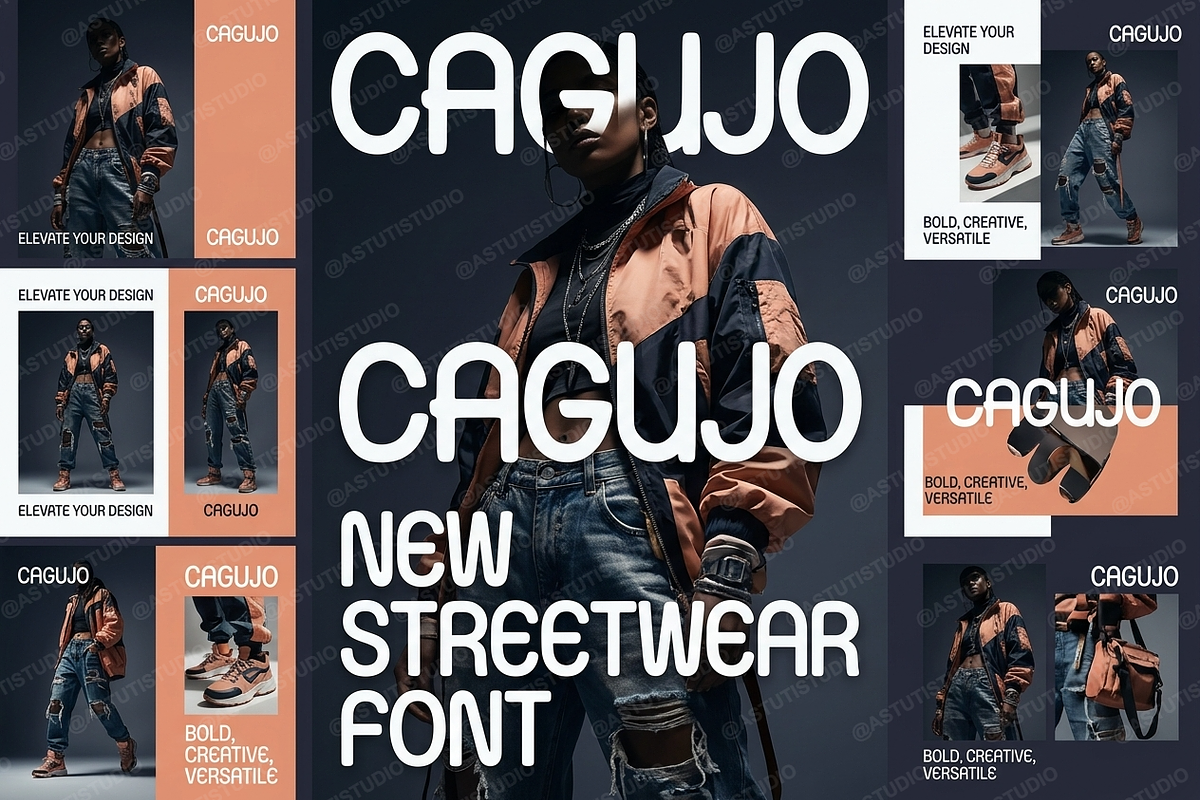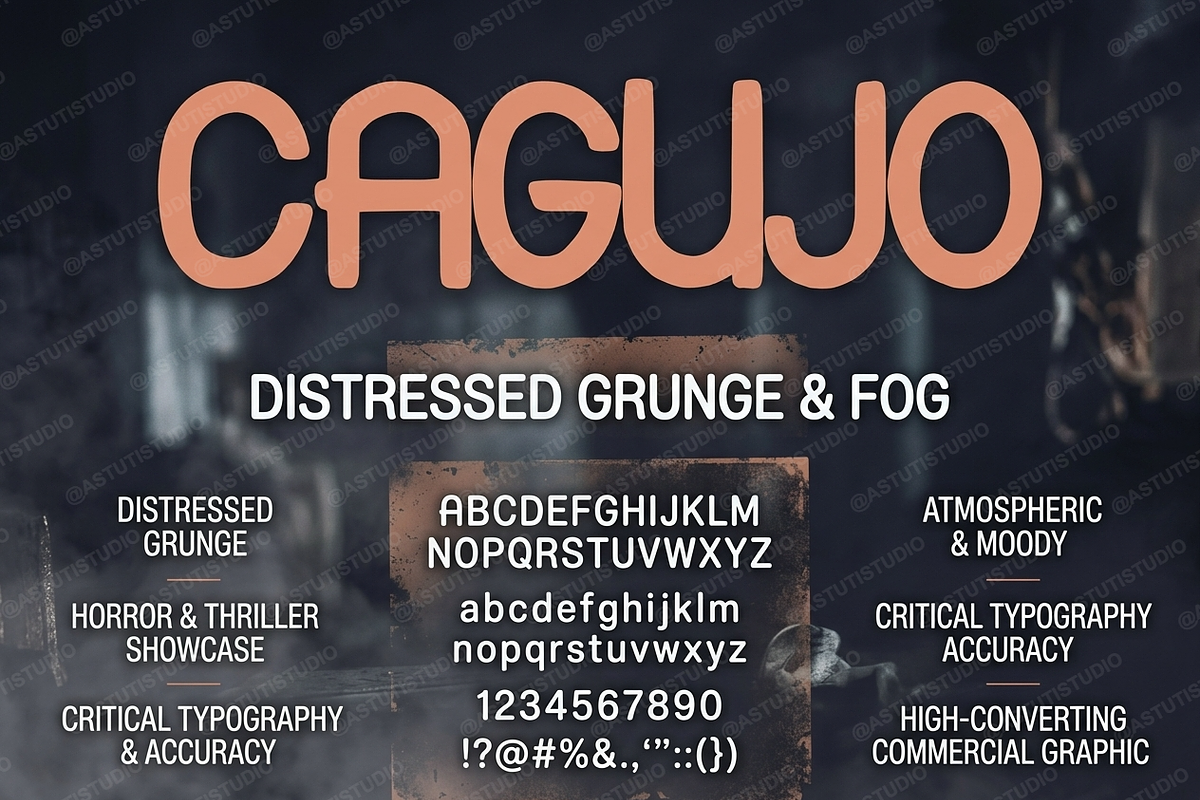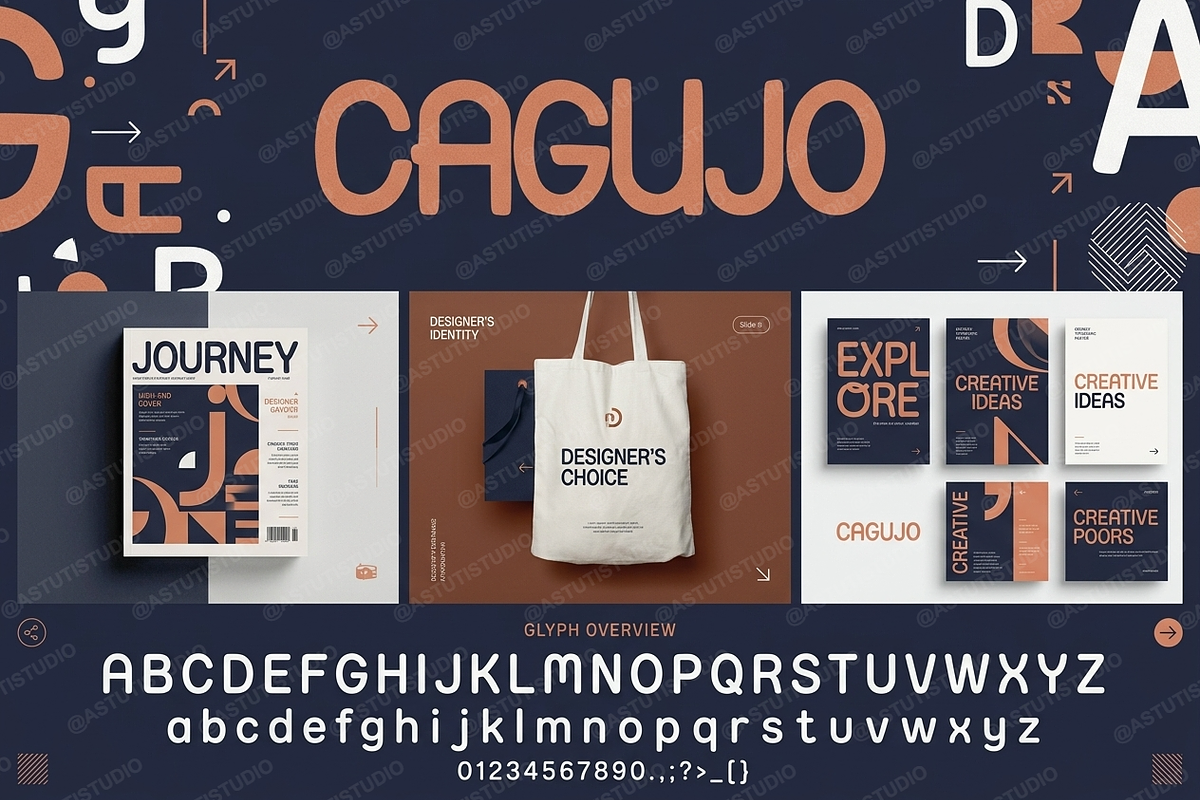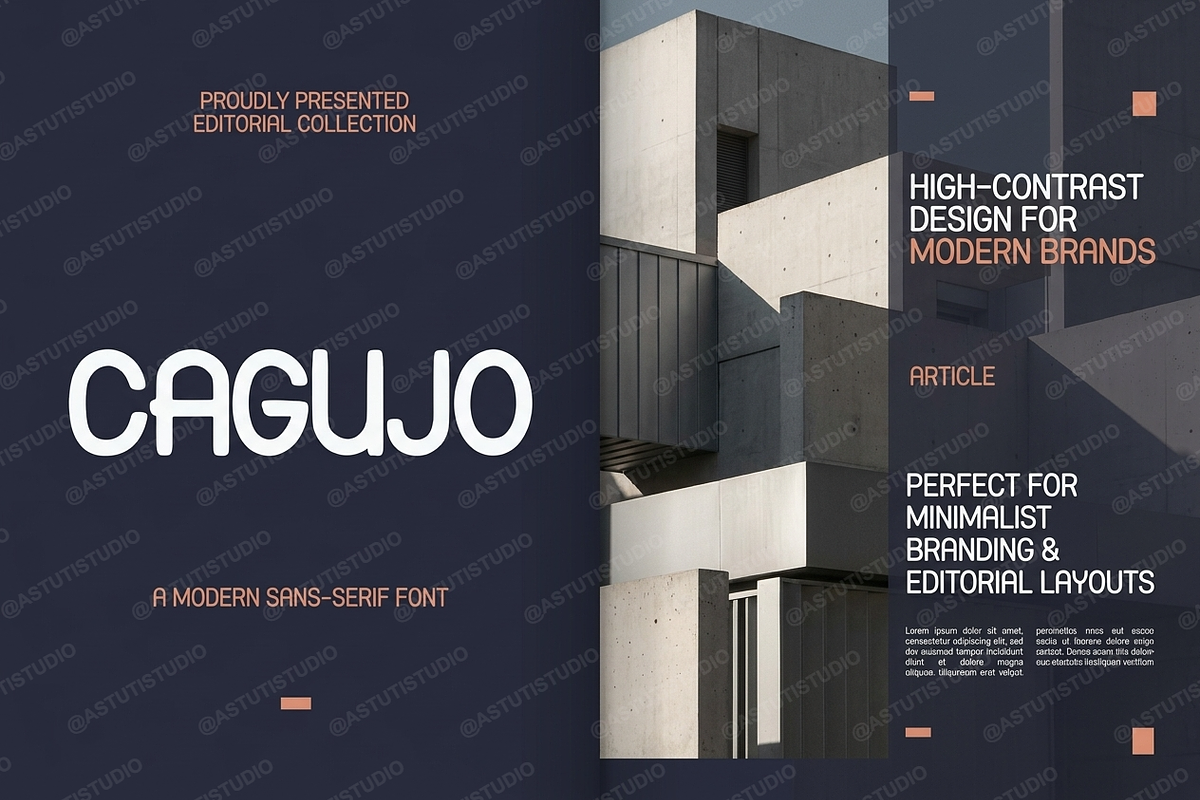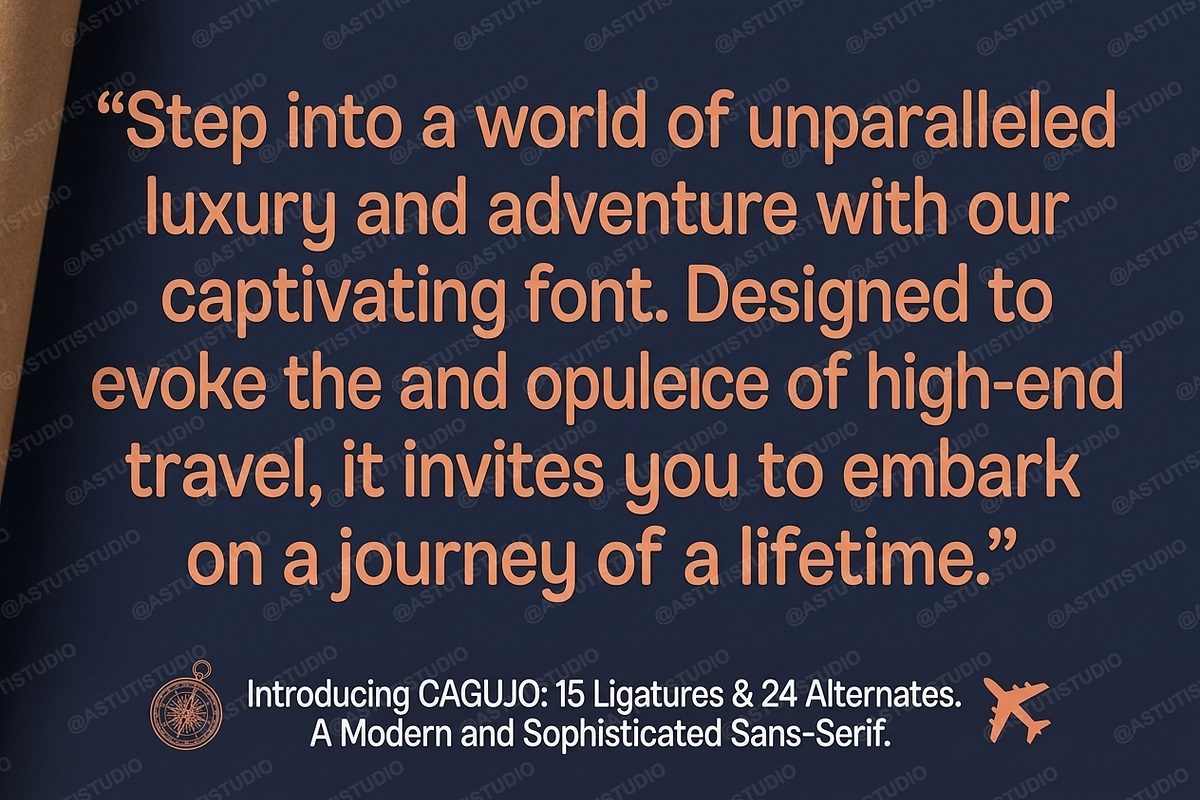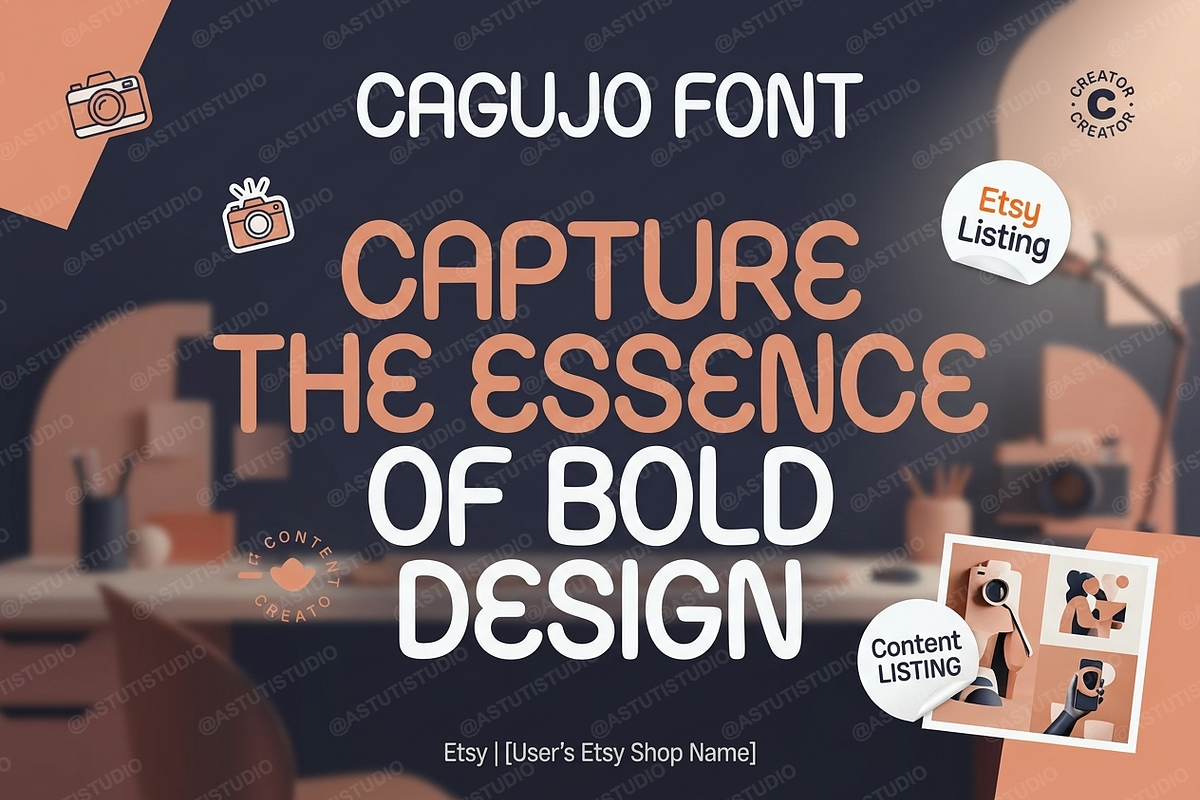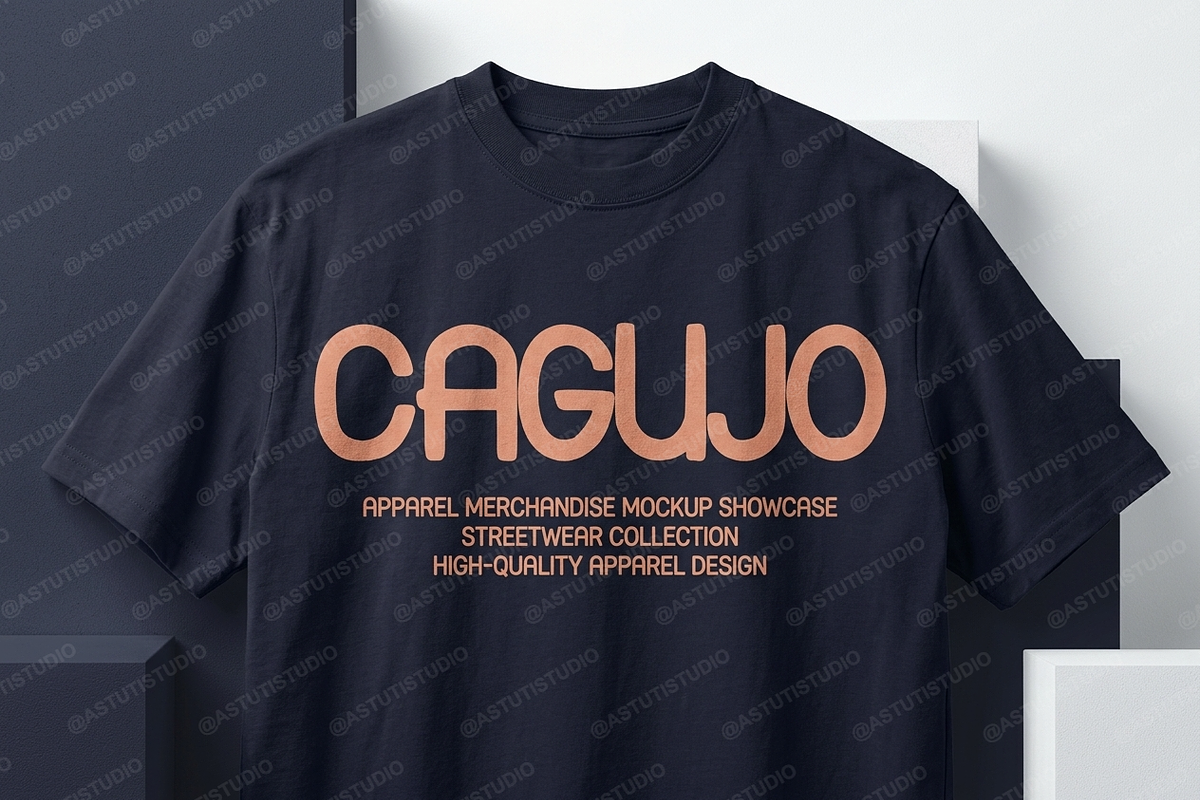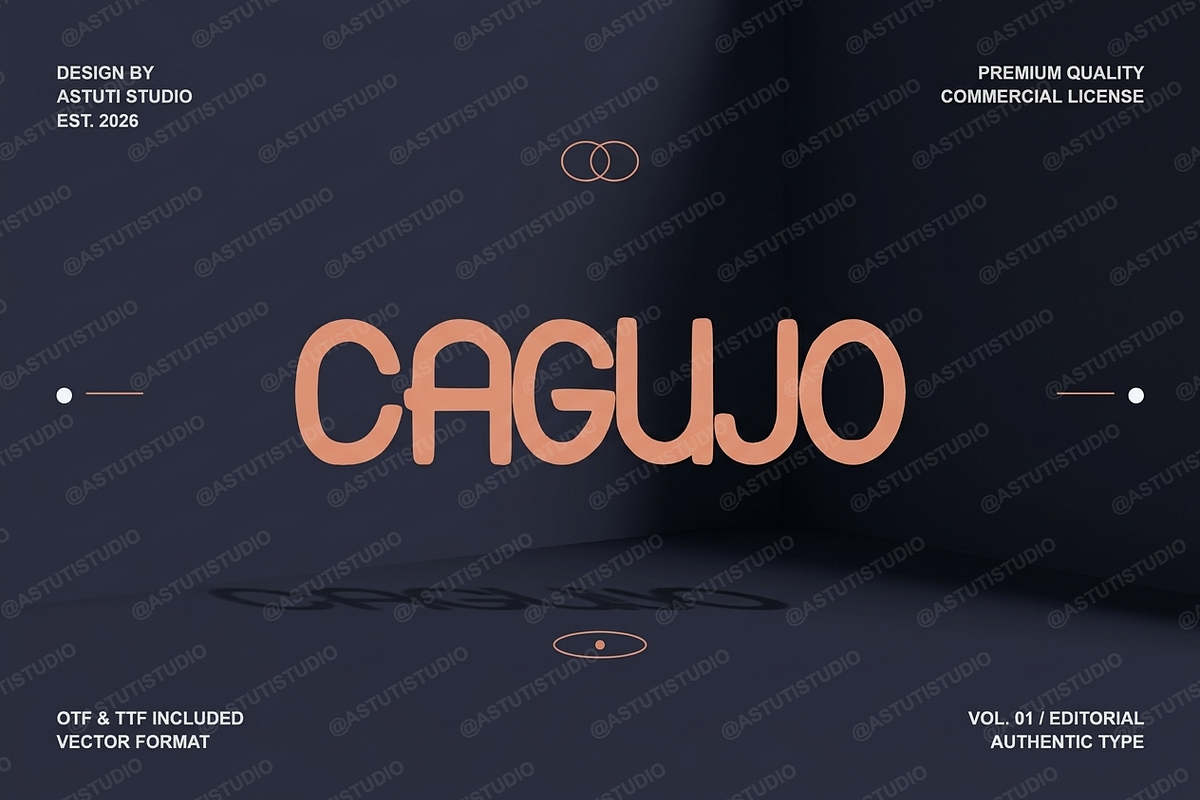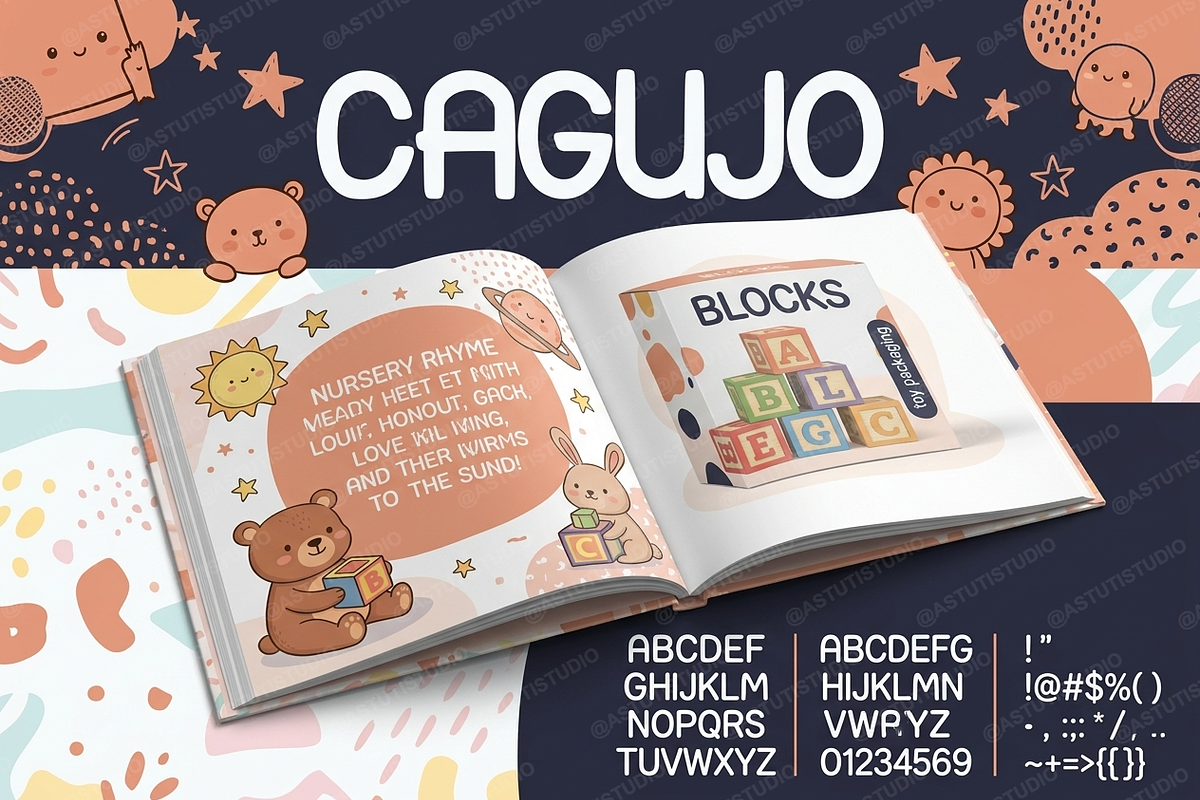
Cagujo | Luxury Editorial Serif
Cagujo is a premium serif typeface meticulously crafted for those who demand sophistication and high-end aesthetics. Balancing classic proportions with contemporary high-contrast strokes, Cagujo brings a touch of modern luxury to every creative endeavor. This font is an ideal choice for high-fashion branding, editorial layouts, and curated social media content where elegance is paramount.
- Refined high-contrast letterforms
- Unique discretionary ligatures and stylistic alternates
- Comprehensive multilingual support
- Exceptional legibility for both display and body text
- Clean, balanced geometry for a professional finish
- Complete character set including uppercase and lowercase
- Numbers, punctuation, and special symbols